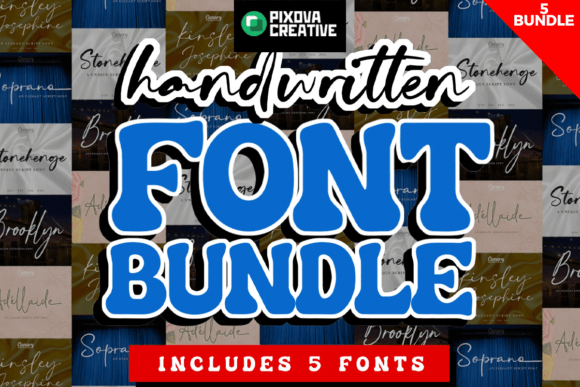
Unlock Your Creativity with the Perfect Handwritten Touch
Have you ever stared at a blank page, struggling to find the perfect font to bring your creative vision to life? You’re not alone. As a designer, there’s nothing quite like the thrill of seeing your ideas take shape, but the right font can make all the difference. That’s where the Handwritten Bundle Font comes in – a collection of 5 unique, elegant, handcrafted fonts designed to add a personal touch to your projects.
This bundle is more than just a font set – it’s a creative freedom pass. With the Handwritten Bundle Font, you’ll have the flexibility to express yourself in any medium, from digital design to paper crafts. Whether you’re a seasoned pro or just starting out, this bundle is an essential tool for any designer looking to elevate their work. With easy installation and compatibility with a range of applications, you can focus on what matters most – bringing your creative vision to life.
Handwritten Bundle Font Key Features
- Font Family: Includes 6 unique handwritten fonts – Handwritten Bundle, Handwritten Bundle Script, Handwritten Bundle Script Italic, Handwritten Bundle Bold, Handwritten Bundle Bold Italic, and Handwritten Bundle Italic
- Size: Includes 300 characters per font, covering a wide range of languages and characters
- Unique Characteristics: Features a mix of handwritten and cursive styles, with subtle imperfections and texture to give it a natural, handwritten feel
Designer Review: Handwritten Bundle Font
Overall, I think the Handwritten Bundle Font is a great addition to any designer’s toolkit. It’s a versatile font that can be used for a wide range of projects, from invitations and wedding designs to branding and marketing materials. ✨
The font is highly customizable, with many different styles and weights to choose from. This makes it easy to tailor the font to your specific design needs, whether you’re going for a formal and elegant look or something more playful and casual. ✨
- Highly customizable with many different styles and weights
- Perfect for invitations, wedding designs, and branding materials
- Easy to use and navigate
While the Handwritten Bundle Font is generally a great choice, there are a few limitations to be aware of. ⚠️
- The font may not be suitable for large blocks of text, as it can be difficult to read at certain sizes
- The font may not be as legible on certain backgrounds or with certain color combinations
Overall, I would highly recommend the Handwritten Bundle Font to designers and non-designers alike. It’s a great choice for a wide range of projects, and its high level of customization makes it easy to use and navigate. While it may have a few limitations, the benefits far outweigh the drawbacks. I’m excited to use this font in future projects and think it will be a valuable addition to my design toolkit.
For the most effective use of the Handwritten Bundle Font, use it for titles, headings, and emphasis. It’s ideal for creating a personal, handwritten feel in invitations, quotes, and social media graphics. Avoid using it for large blocks of text, as it may become difficult to read.